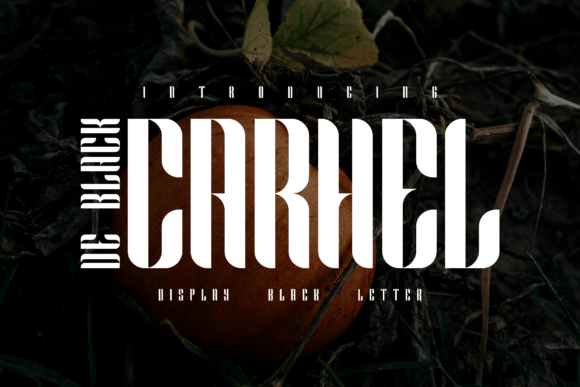
The Ultimate Guide to Carhel De Black Font: Elevate Your Designs with Elegance
I’ll never forget the time I was working on a fashion branding project, and my client asked for a font that exuded luxury and sophistication. I scoured the internet, tried countless fonts, but nothing seemed to fit the bill. That was until I stumbled upon Carhel De Black. This stunning display font has been a game-changer for my designs, and I’m excited to share its beauty with you.
A Personal Review: What I Love About Carhel De Black
Carhel De Black has an elegant, classy, and modern look that instantly elevates any design project. Here are some of the things I love about this font:
- ✨ Sophisticated and luxurious feel: Carhel De Black is perfect for high-end fashion brands, album covers, and luxury product designs.
- ✅ Versatile and adaptable: This font works beautifully for various design projects, including logos, branding, magazines, social media, and more.
- 💯 Excellent legibility: Even at smaller sizes, Carhel De Black remains clear and easy to read.
While Carhel De Black is an amazing font, there are a few things to keep in mind:
- 🤔 Limited use for body text: Due to its elegant and condensed nature, Carhel De Black might not be the best choice for lengthy body text.
- ⚠️ Requires careful kerning: As with any font, it’s essential to adjust kerning to ensure optimal readability and aesthetics.
- Experiment with OpenType features, such as Stylistic Alternates, to add more flair to your design.
Carhel De Black was designed with the intention of creating a luxurious and sophisticated font that would cater to the fashion and design industries. The designer aimed to craft a font that would exude elegance and refinement, while still being versatile and adaptable.
| Font Name | Carhel De Black Font |
| Author | ponuppo |
| What is Carhel De Black suitable for? | Carhel De Black is perfect for fashion branding, album covers, logos, magazines, social media, and more. |
| Is Carhel De Black easy to read? | Yes, Carhel De Black has excellent legibility, even at smaller sizes. |
| Can I use Carhel De Black for body text? | While possible, Carhel De Black might not be the best choice for lengthy body text due to its elegant and condensed nature. |